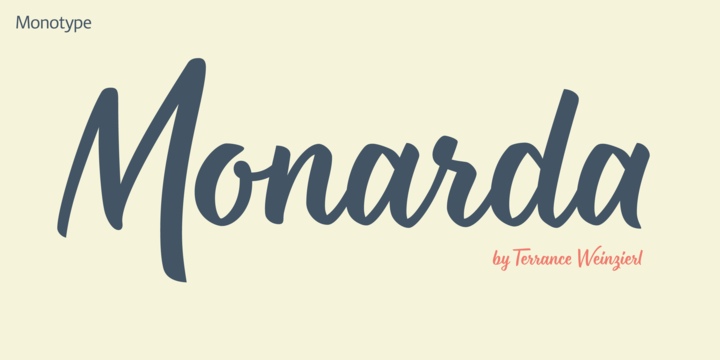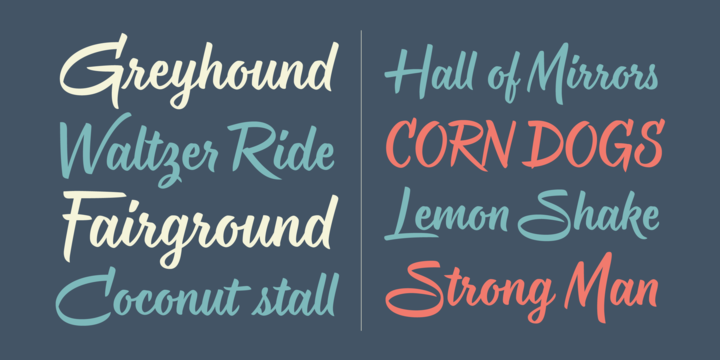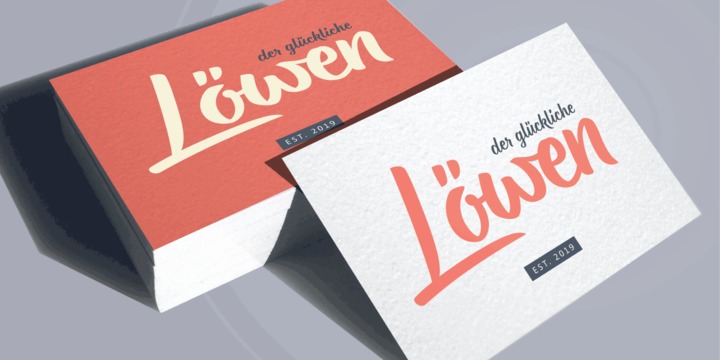
Monarda Font
About this font family
Monarda™ is Terrance Weinzierl’s take on the loud and splashy brush scripts of the 1950s. It’s energetic, playful, and equally at home in hardcopy headlines as it is in interactive banners. In addition to the basic alphabet, OpenType® fonts of Monarda are also awash in super-sized swash caps, contextual alternate characters and ligatures. Pair Monarda with a mid-century structural sans like Trade Gothic® or a sturdy slab serif like Egyptian Slate™ to create typographic counterpoint that’s confident, compelling and memorable!